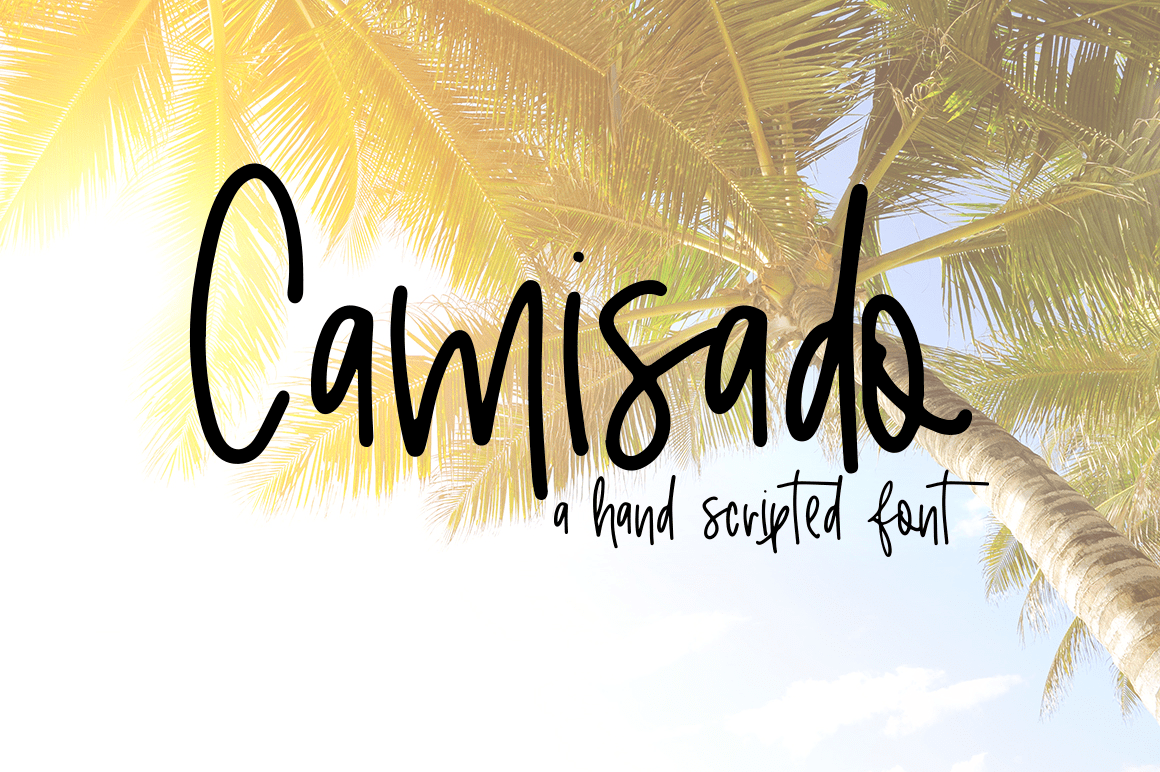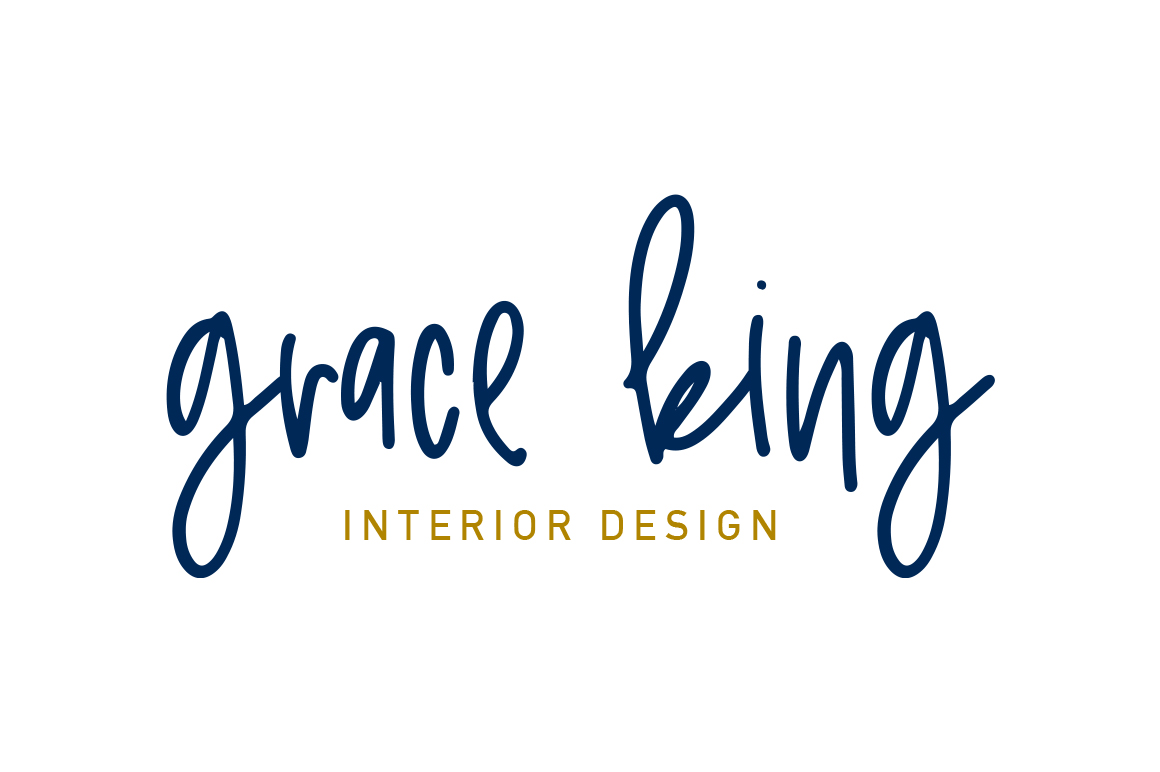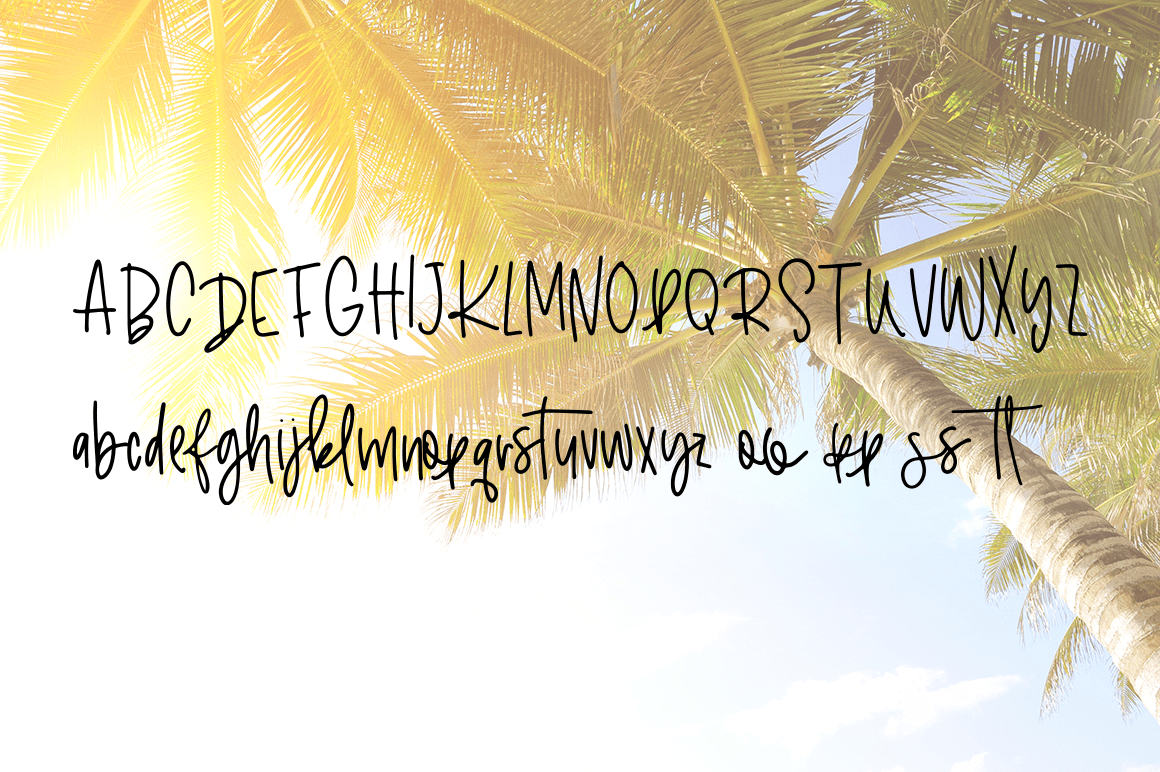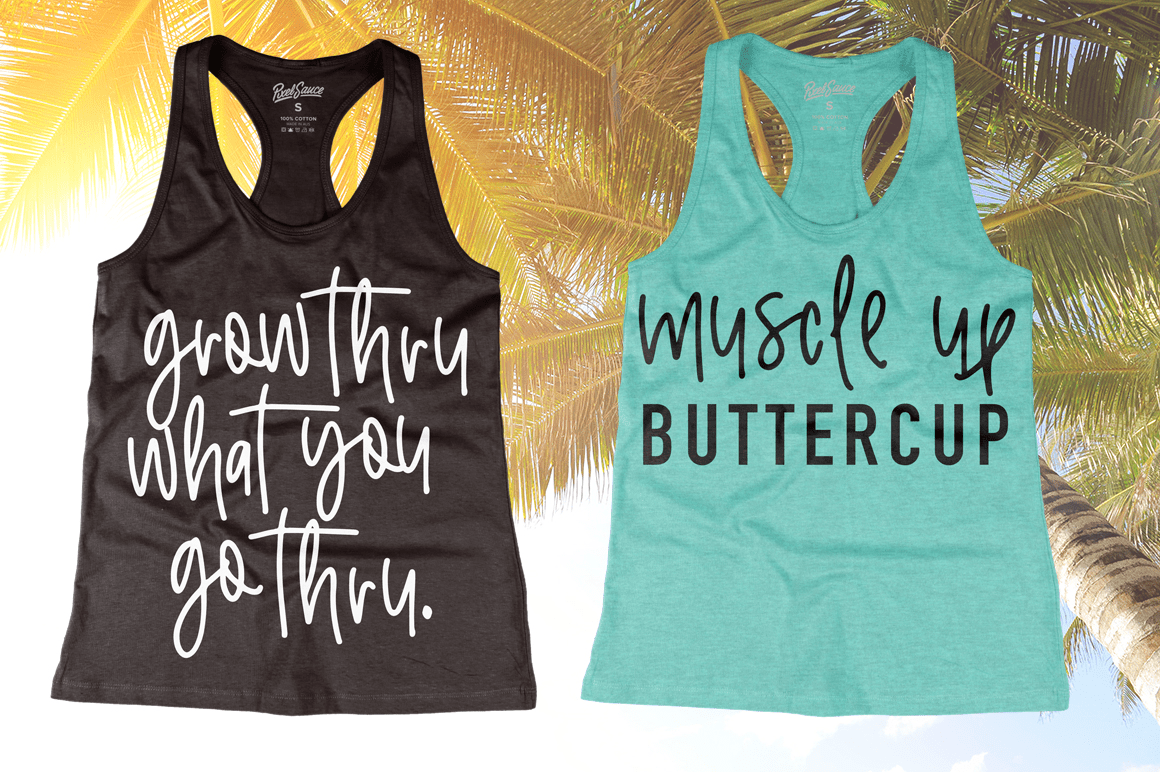
Camisado
Camisado is quick scripted font perfect for something needing that personal hand lettered touch. Includes doubles "oo, pp, ss, tt" as well as Uppers, Lowers, Numbers & Basic Punctuation.